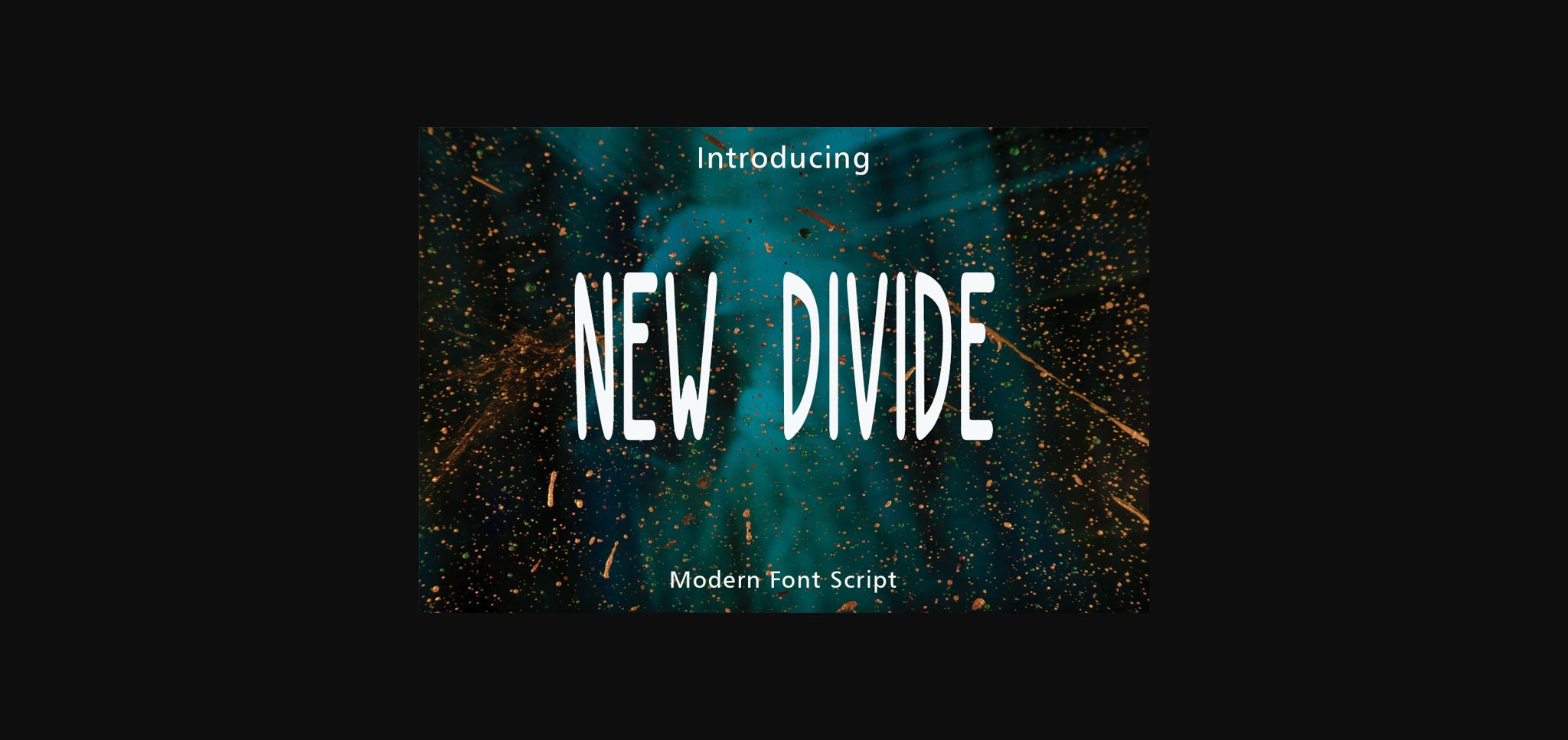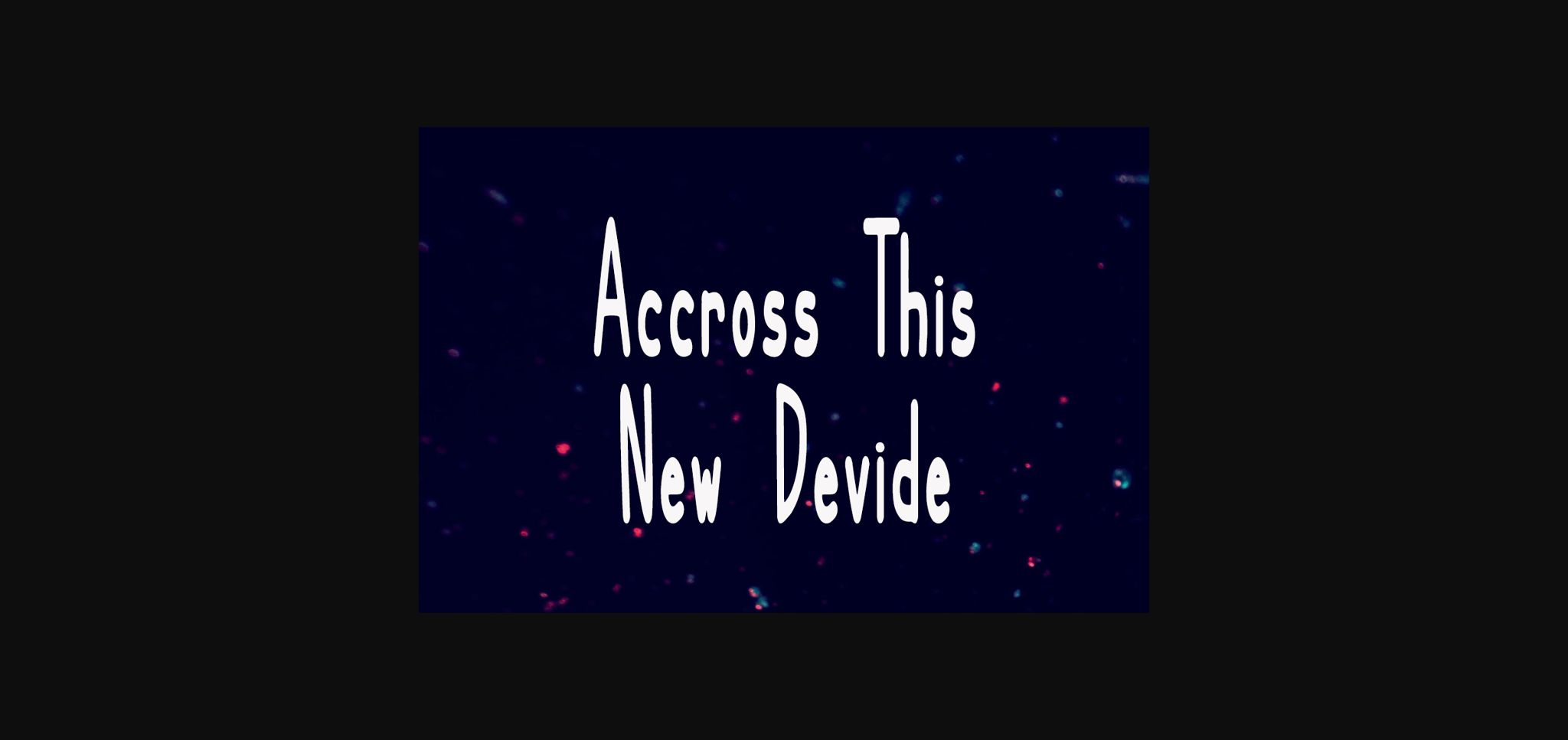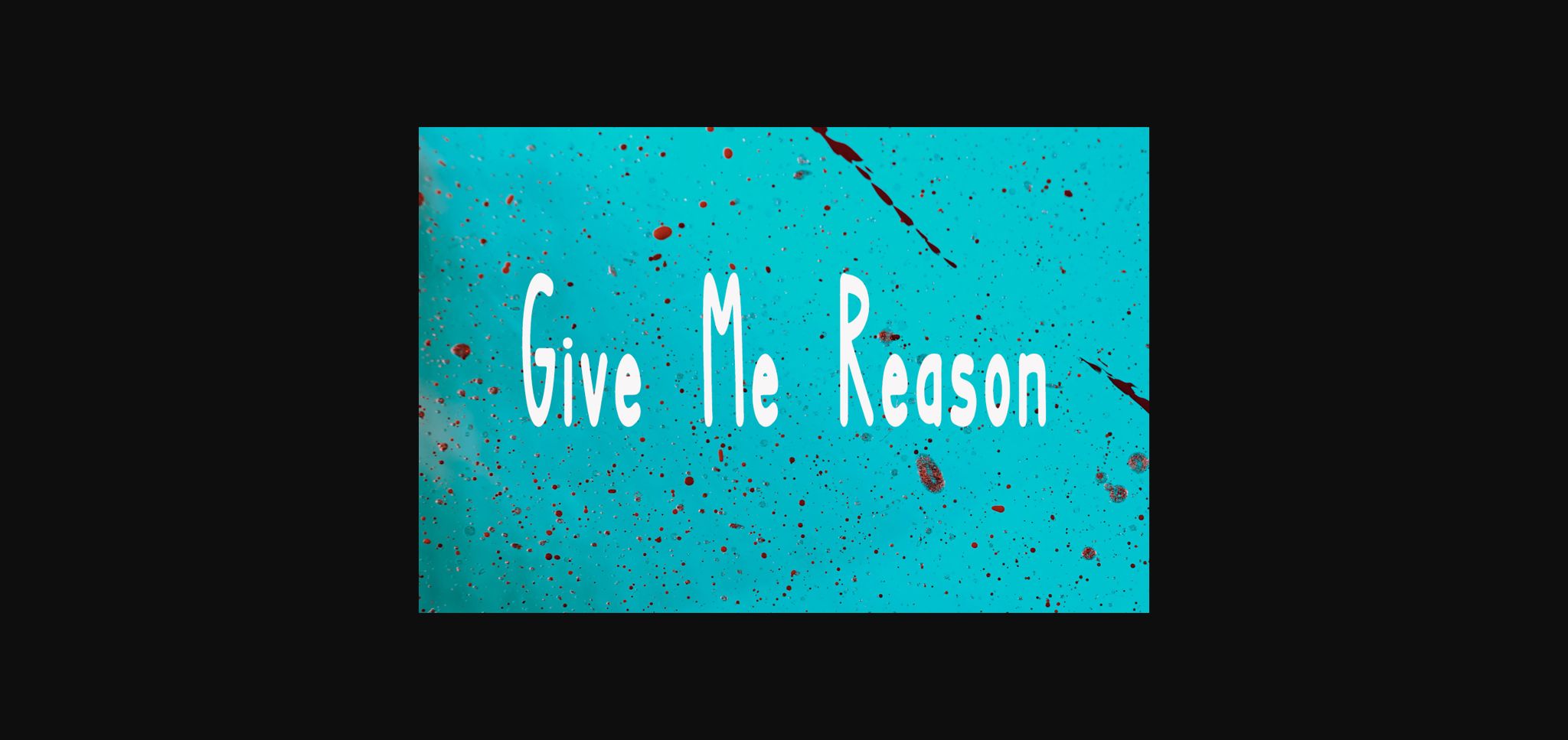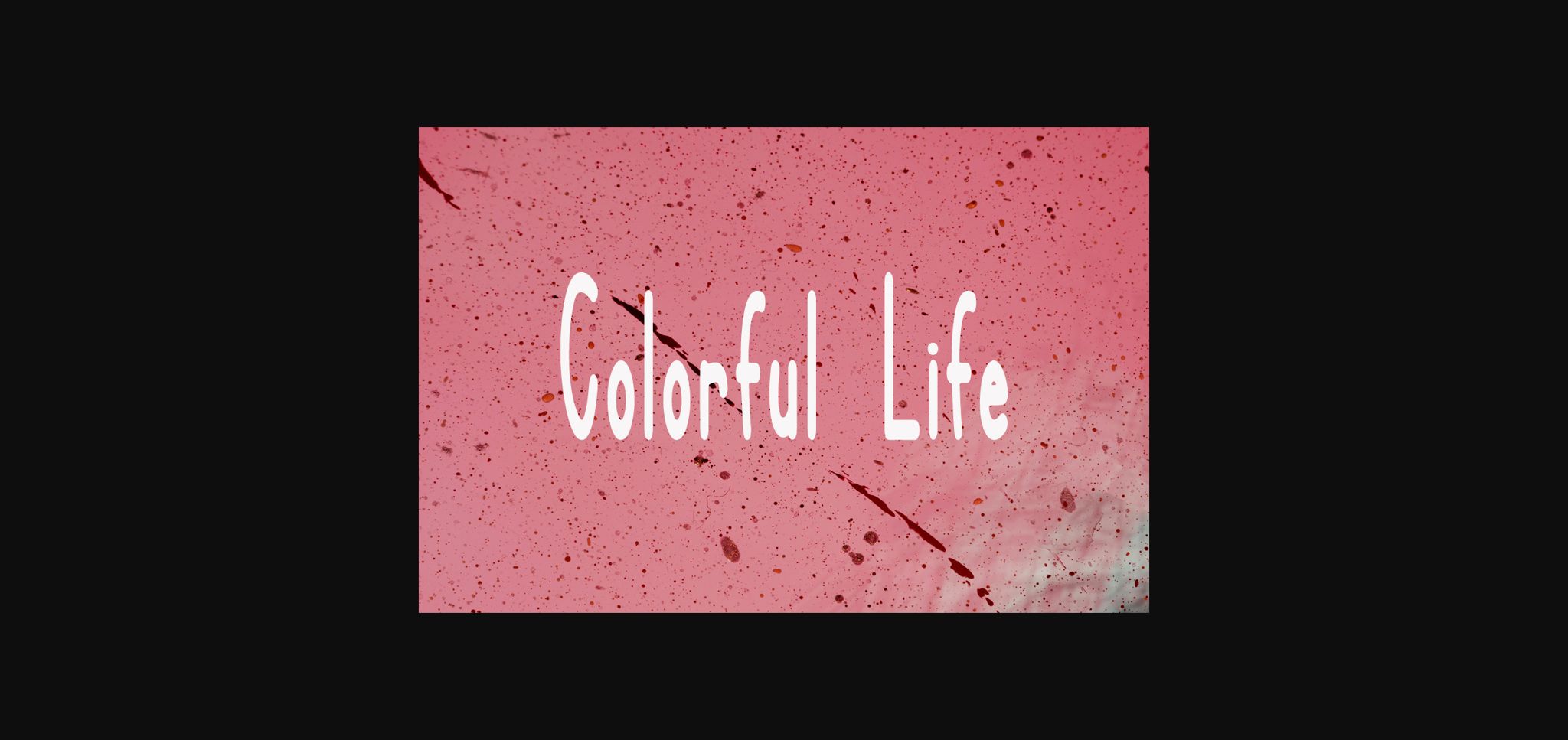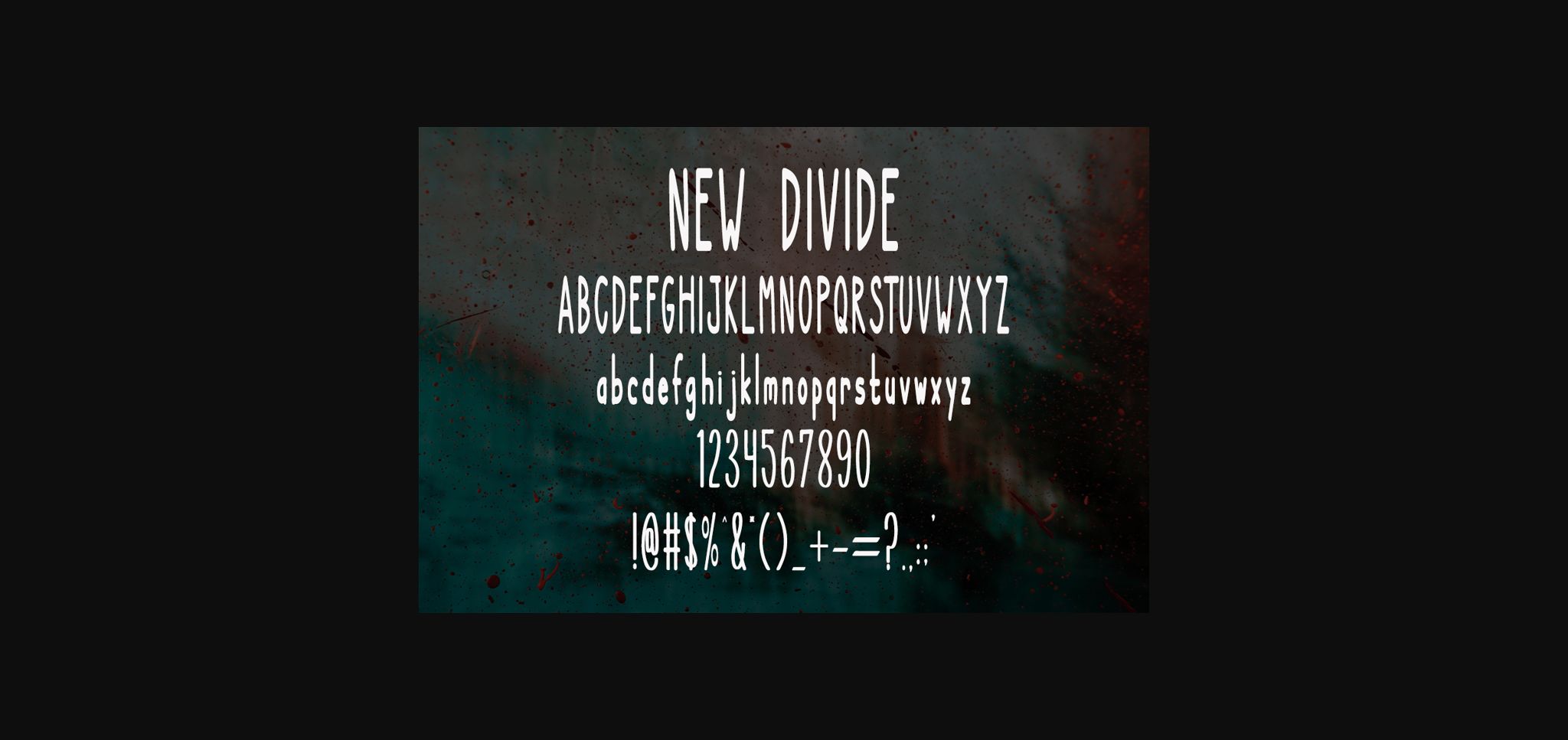
HomeSans Serif FontsNew Divide Font Sans Serif Fonts New Divide Font FacebookXPinterestWhatsApp 1 of 7 ... New Divide Font Poster 2... New Divide Font Poster 3... New Divide Font Poster 4... New Divide Font Poster 5... New Divide Font Poster 6... New Divide Font Poster 7... About New Divide Font New Divide is a minimal and neat sans serif font. It can easily be matched to an incredibly large set of projects, so add it to your creative ideas and notice how it makes them stand out! DOWNLOAD NOW People also explored Boho Font Mandeala Font Missy Mouse Font Rustine Font Silagus Font Euipe Font Aptly Disgracefull Font Quaro Font 483 0 TagsNew Divide Font Previous articleLundy FontNext articleEkela Font LEAVE A REPLY Cancel reply Comment: Please enter your comment! Name:* Please enter your name here Email:* You have entered an incorrect email address! Please enter your email address here Website: Save my name, email, and website in this browser for the next time I comment. Personal Use Free 1313 Mockingbird Lane Personal Use Free Read more about this font Cloudy Night Personal Use Free Read more about this font Stronger Personal Use Free Read more about this font Lazy Sunday Personal Use Free Read more about this font BLOG Using Fonts in Digital Marketing: Tips to Strengthen Your Brand Identity In the realm of digital marketing, every visual element plays a crucial role in shaping a brand's identity, and fonts are no exception. The... Top 10 Handwritten Fonts That Elevate Your Designs Exploring Font Trends Where to Buy American Fonts Online in 2024